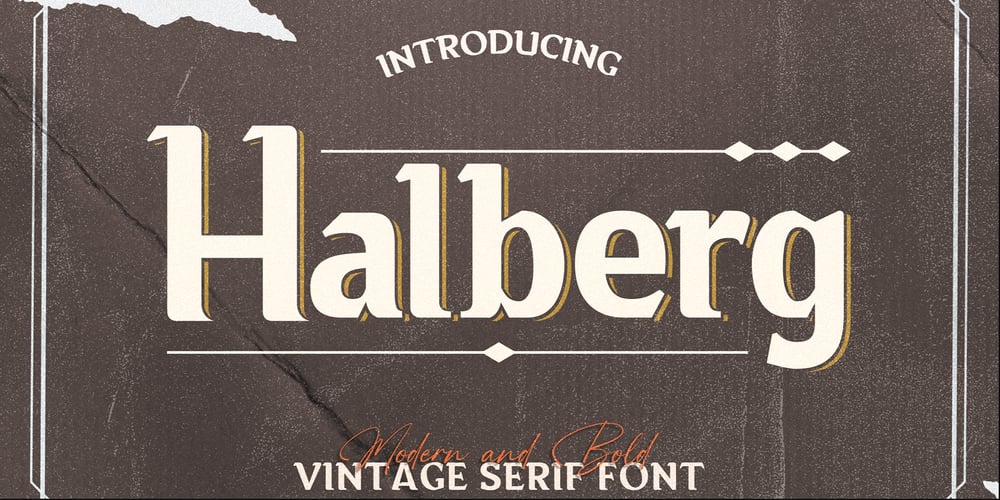
Halberg Font Family was designed by Heri Imanudin and published by Krafted. Halberg contains 1 styles and family package options. Wish to infuse some tradition and nostalgia into your project? Whether you’re working on a logo, promo materials, packaging, or invitations, we’ve got just the thing to elevate your design.Introducing Halberg – a Vintage Serif Font.From luxury brands to artisan businesses, Halberg has a timeless appeal to customers. Give it a shot and see how a great font improves the way people see you.What you’ll get: Multilingual & Ligature Support Full sets of Punctuation and Numerals Compatible with: Adobe Suite Microsoft Office Keynote Pages Software Requirements: The fonts that you’ll receive in the pack are widely supported by most software. In order to get the full functionality of the selection of standard ligatures (custom-created letters) in the script font, any software that can read OpenType fonts will work. We hope you enjoy this font and that it makes your branding sparkle! Feel free to reach out to us if you’d like more information or if you have any concerns.